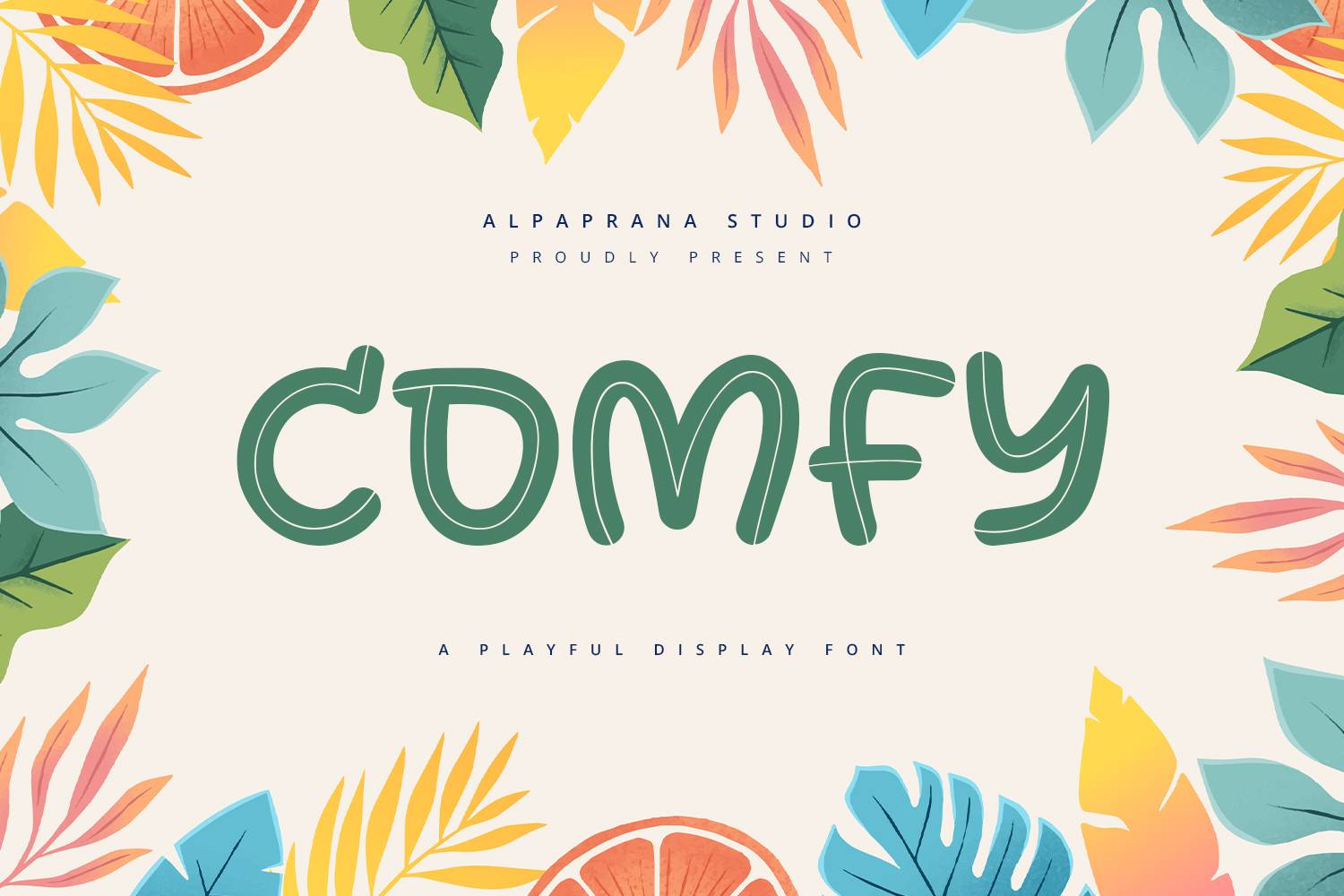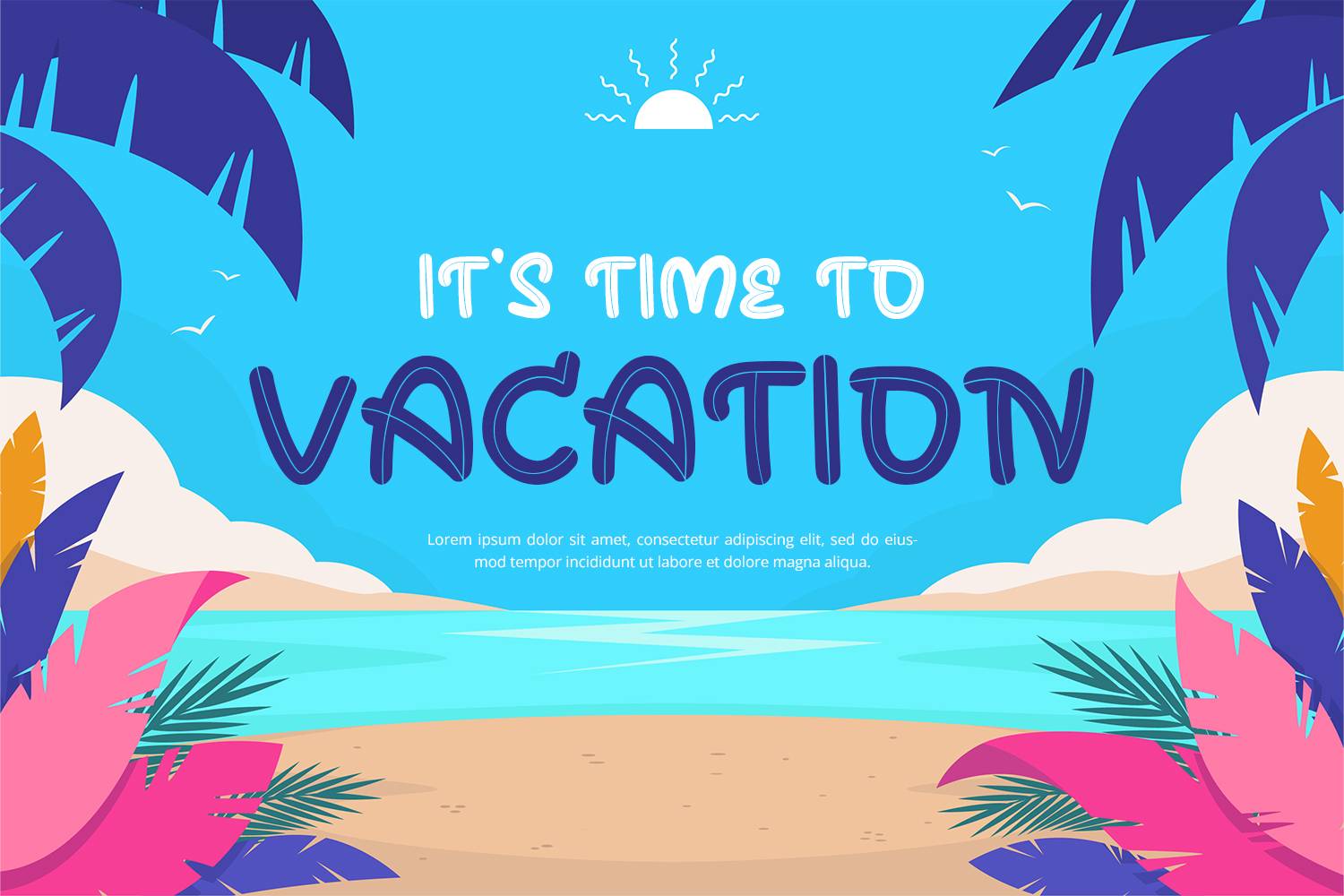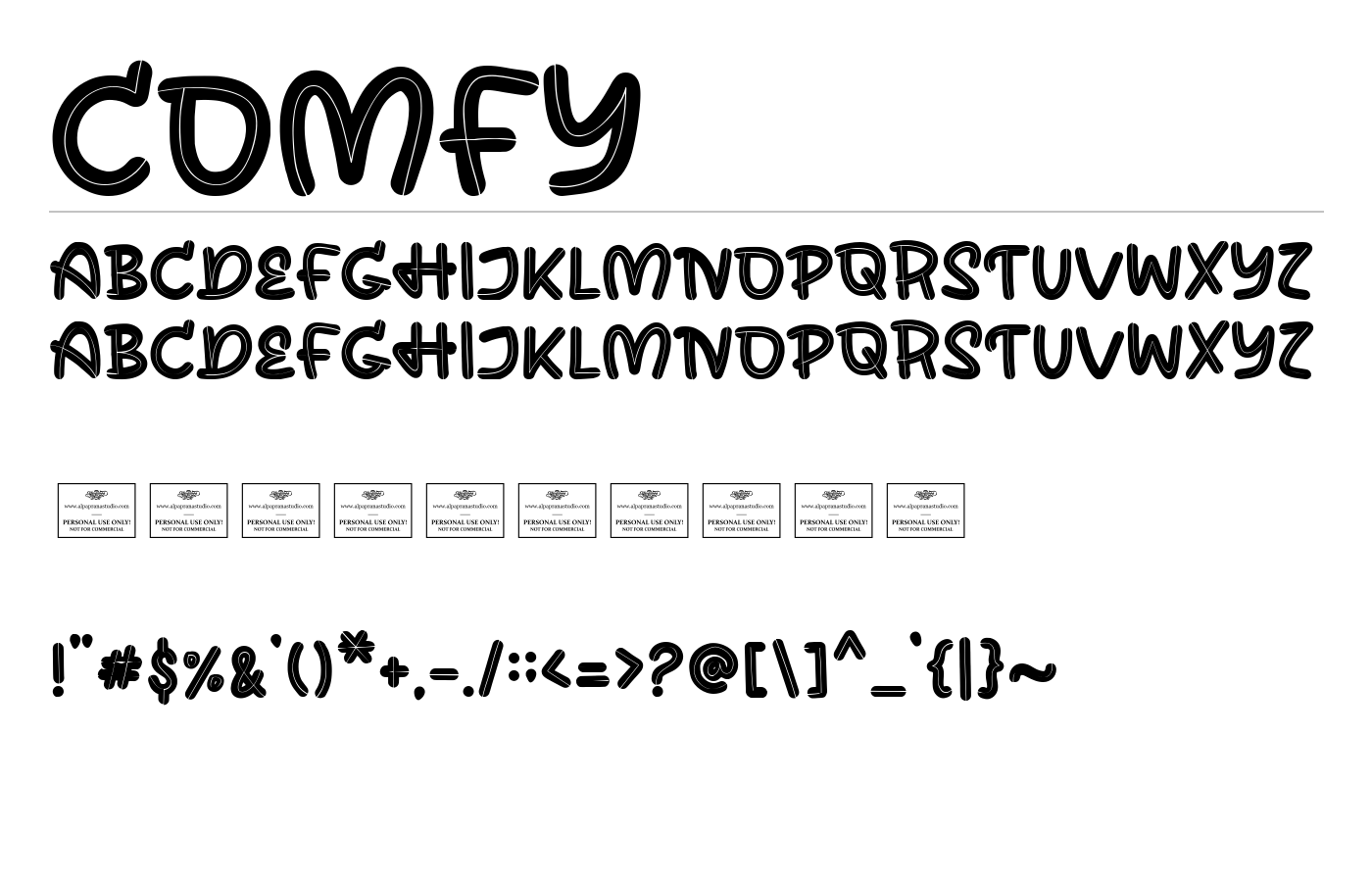
Comfy Font is a playful and casual sans serif typeface with rounded, thick strokes and a hand-drawn feel. Its lively shapes and moderate weight create a friendly, approachable vibe, making it ideal for fun branding, children’s content, and informal headlines. This font works well where a warm, relaxed tone is desired, adding personality without sacrificing readability.
Comfy Font
About Comfy Font